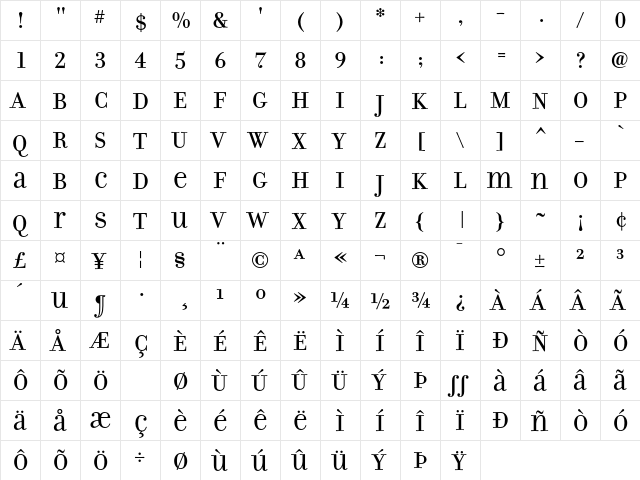
FilosofiaUnicase Roman Font Preview
FilosofiaUnicase Roman
FilosofiaUnicase Roman Font Details
Design Context for FilosofiaUnicase Typeface
FilosofiaUnicase is a composed and adaptable typeface that performs quietly and consistently across a wide range of design contexts.